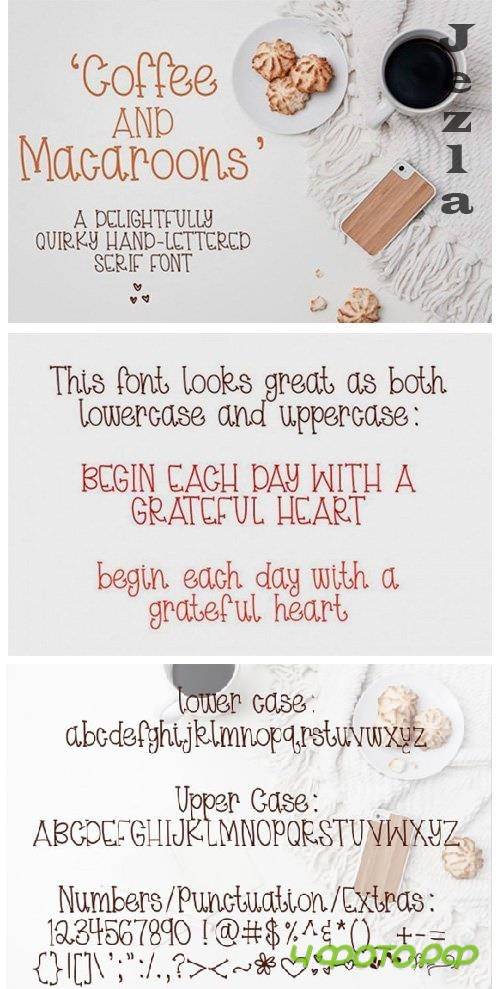
Coffee & Macaroons Font
Coffee & Macaroons is a hand lettered display font. It features a delightfully quirky style that makes it perfect for creating outstanding and original projects!
Get creative with its unique playfulness, and use it to brighten up any crafting project!
Coffee & Macaroons is a hand lettered display font. It features a delightfully quirky style that makes it perfect for creating outstanding and original projects!
Get creative with its unique playfulness, and use it to brighten up any crafting project!
Coffee & Macaroons is a hand lettered display font. It features a delightfully quirky style that makes it perfect for creating outstanding and original projects!
Get creative with its unique playfulness, and use it to brighten up any crafting project!